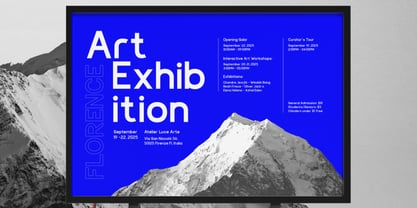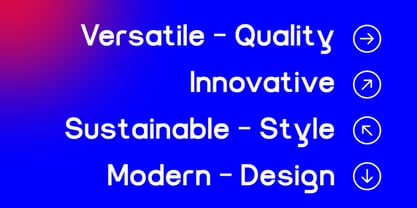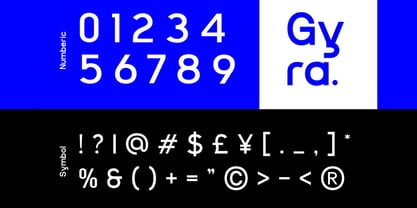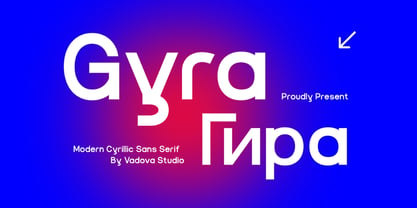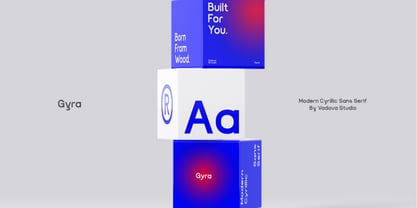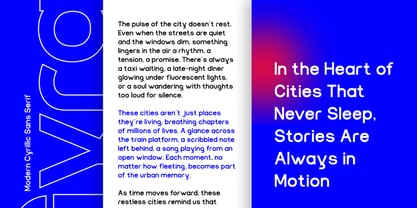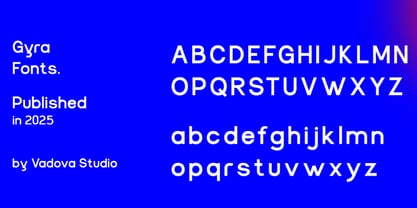
Gyra
Gyra is a clean and contemporary sans-serif typeface designed for clarity, universality, and visual strength. With its geometric structure and multilingual capability, including Cyrillic support, this font is built to bridge cultural boundaries in sleek, modern design.
This typeface speaks the language of innovation and design intelligence. Whether you're crafting a cutting-edge UI/UX interface, building out a branding system for a tech startup, or designing bold editorial spreads, Gyra feels at home. Its clean lines and rational proportions make it a go-to choice for web-based projects, apps, startup brands, and cultural institutions that need a font with structure and global appeal.
• Uppercase & Lowercase characters
• Numeral & Punctuations